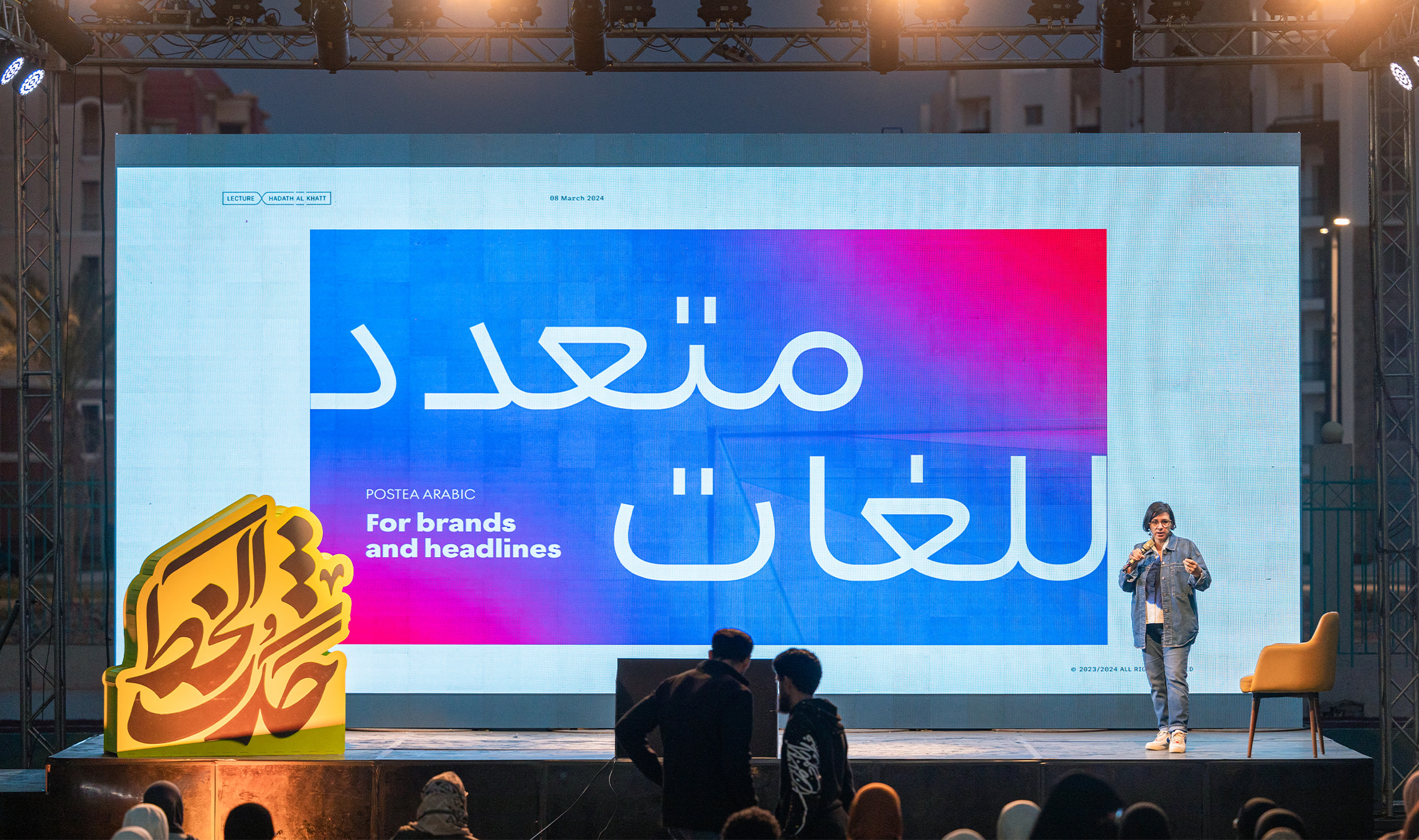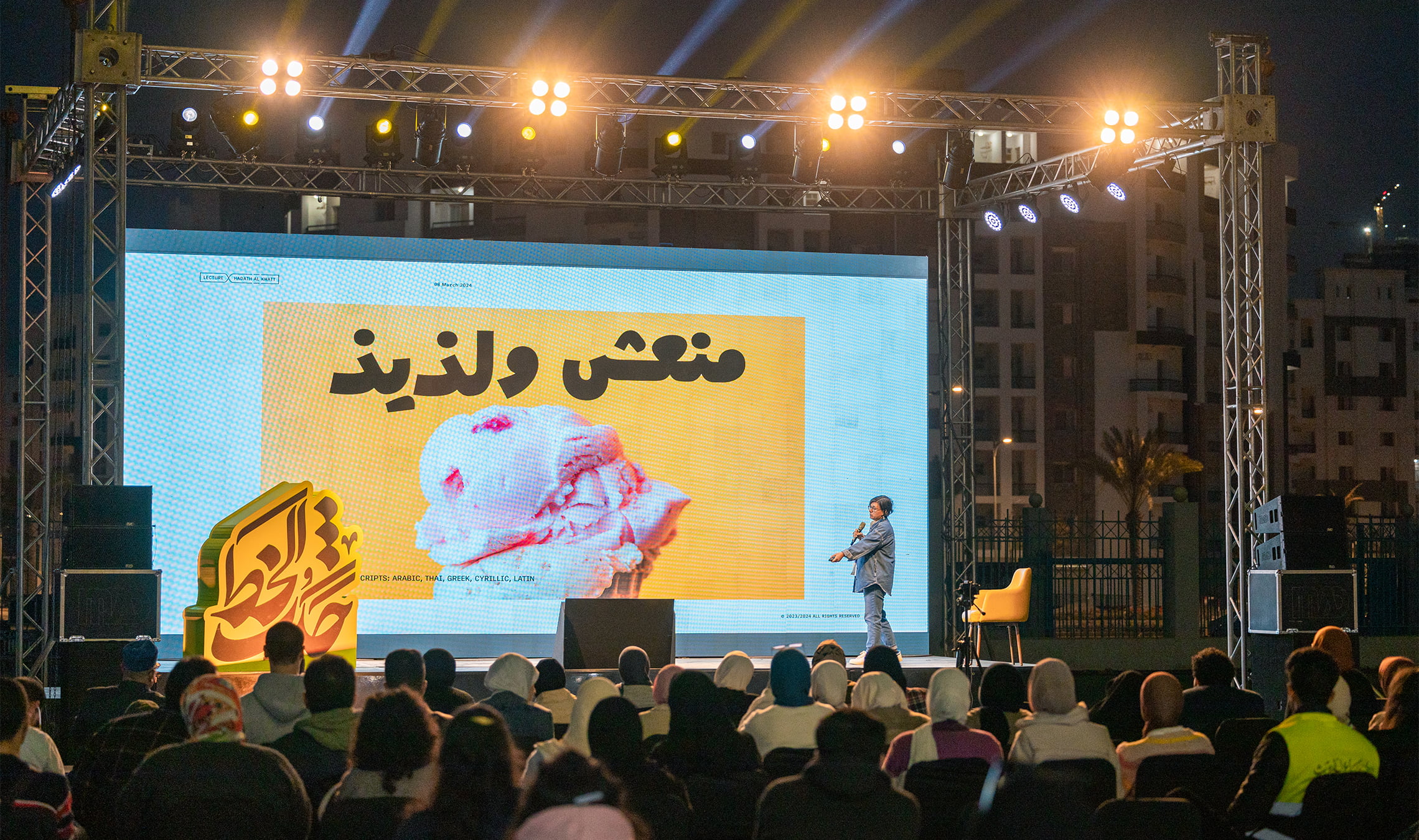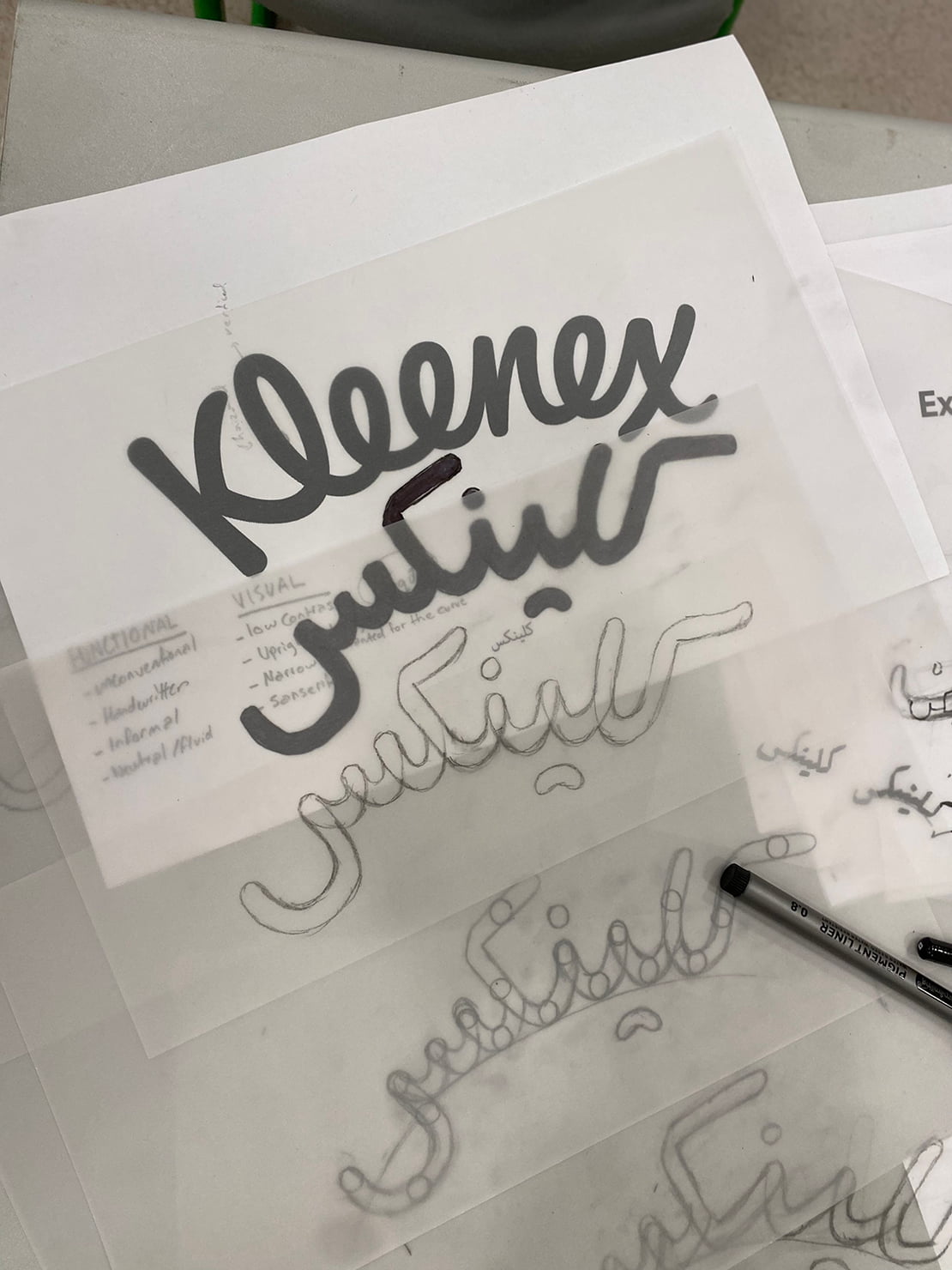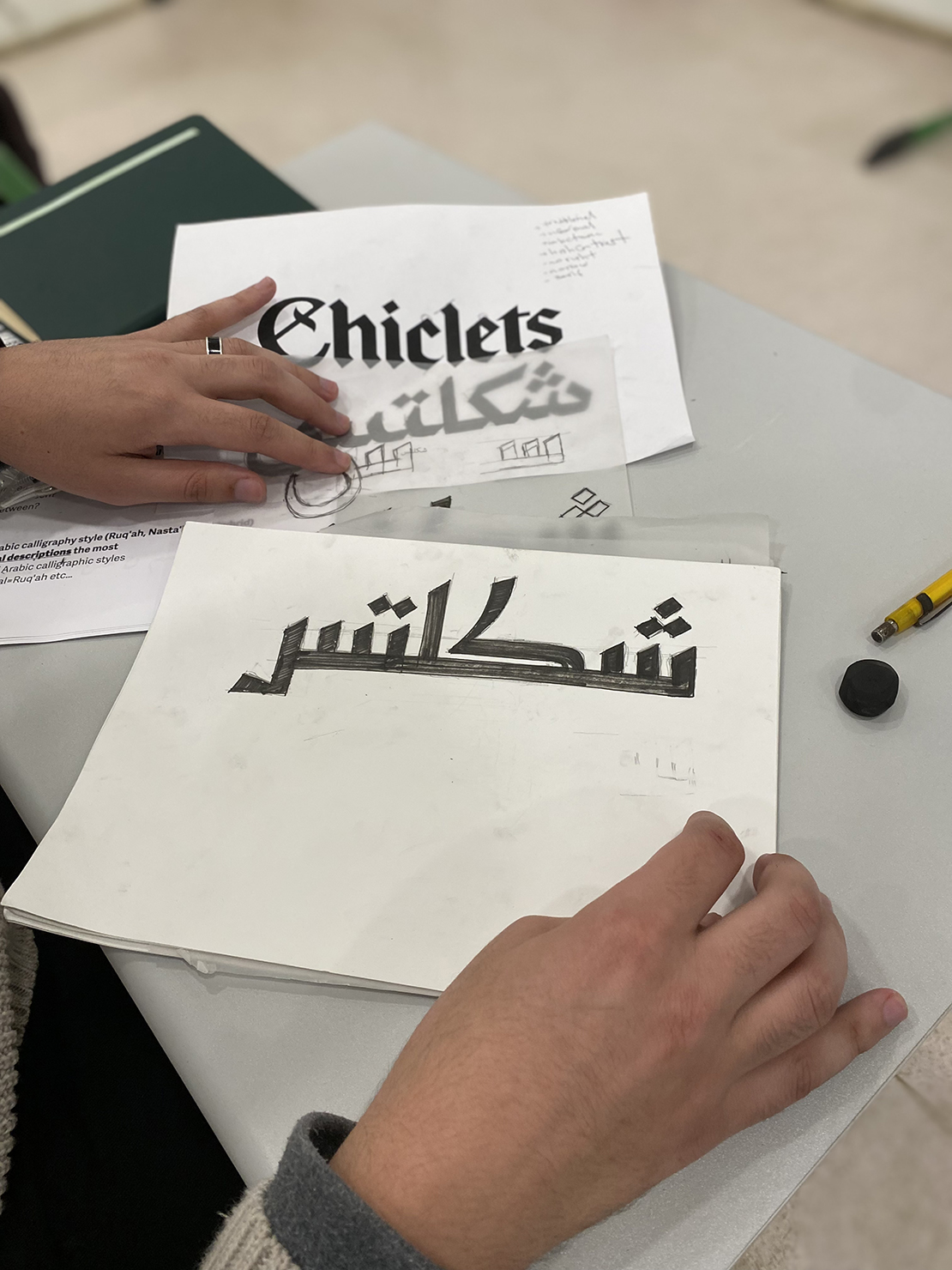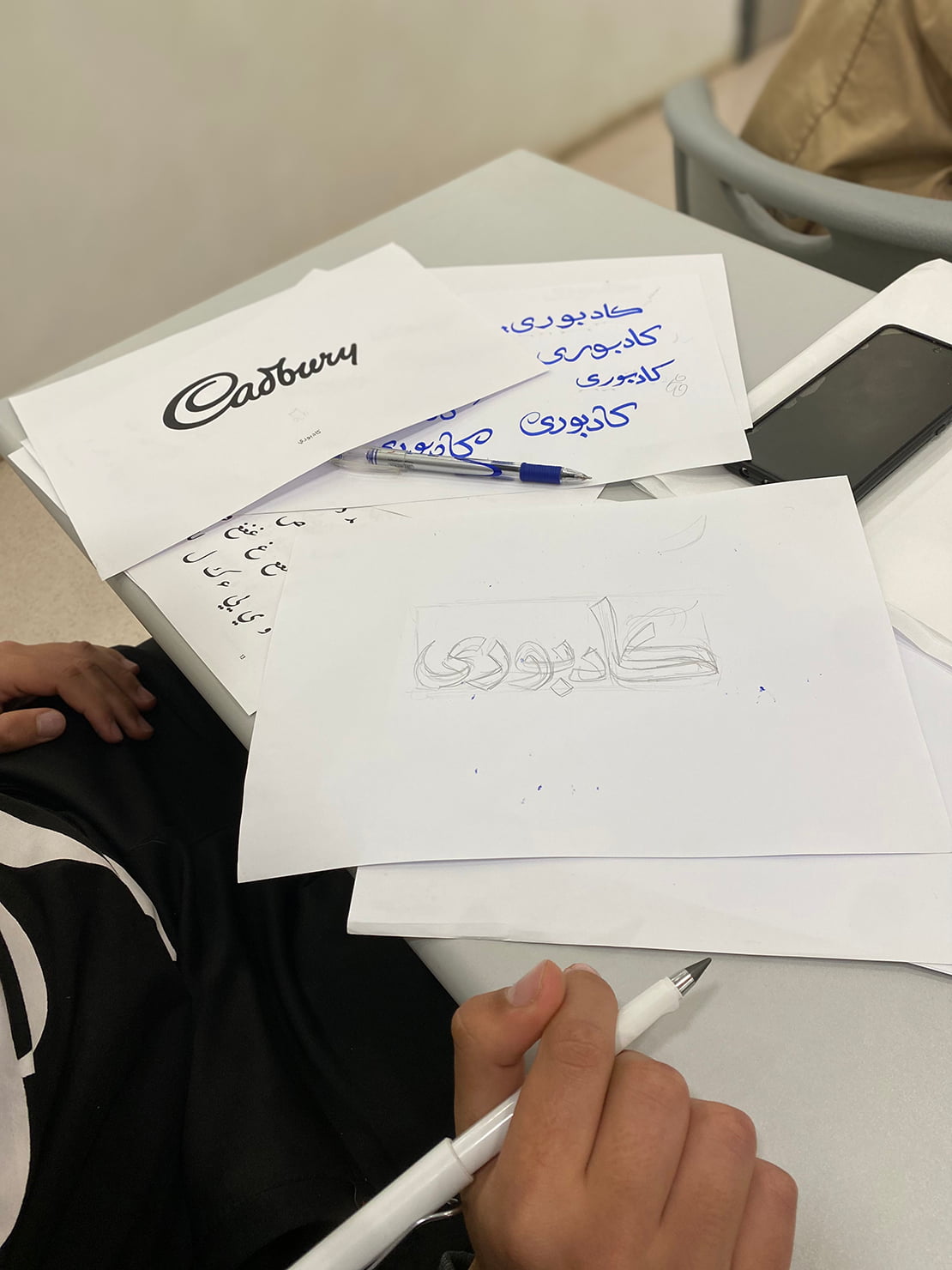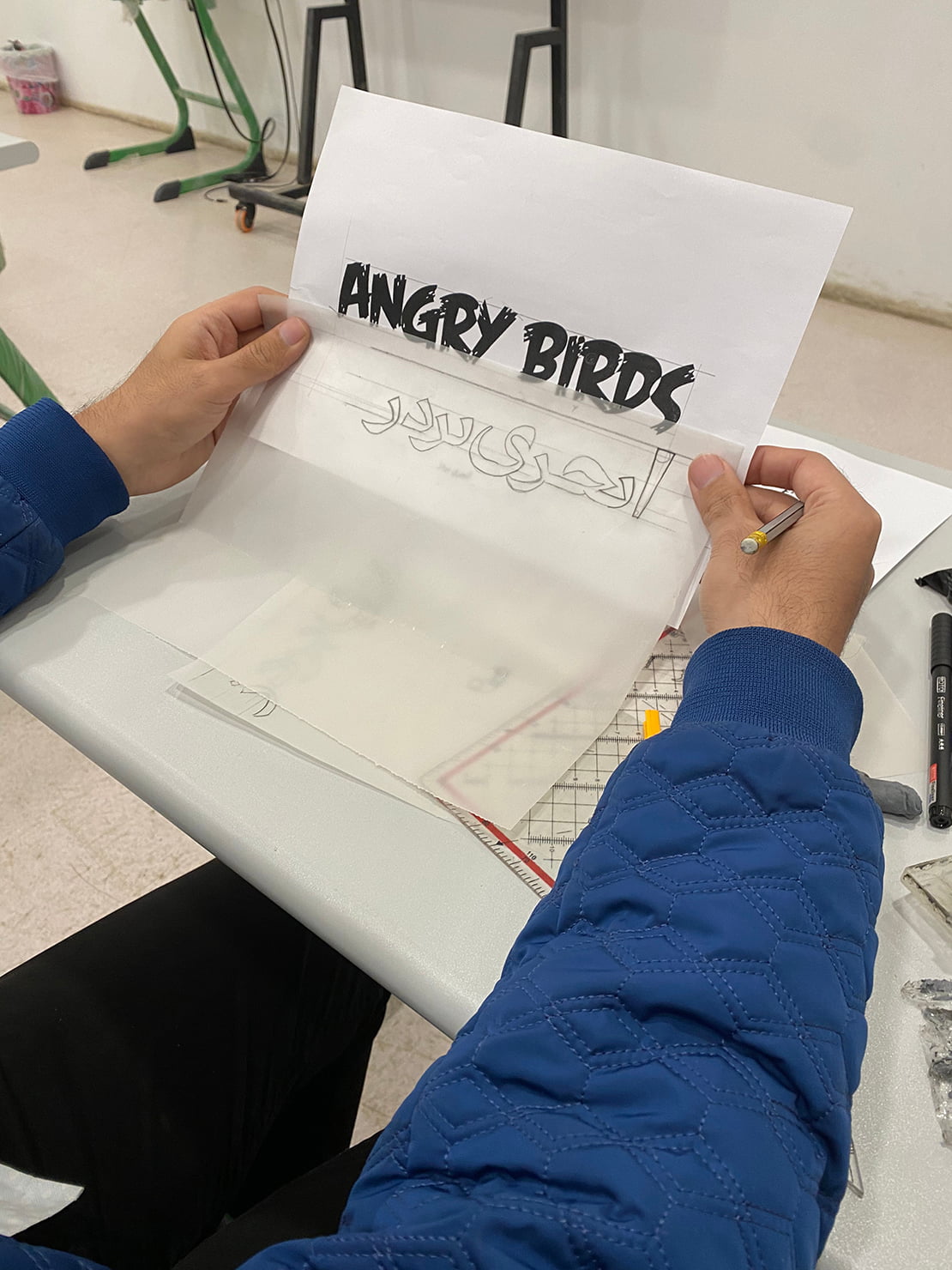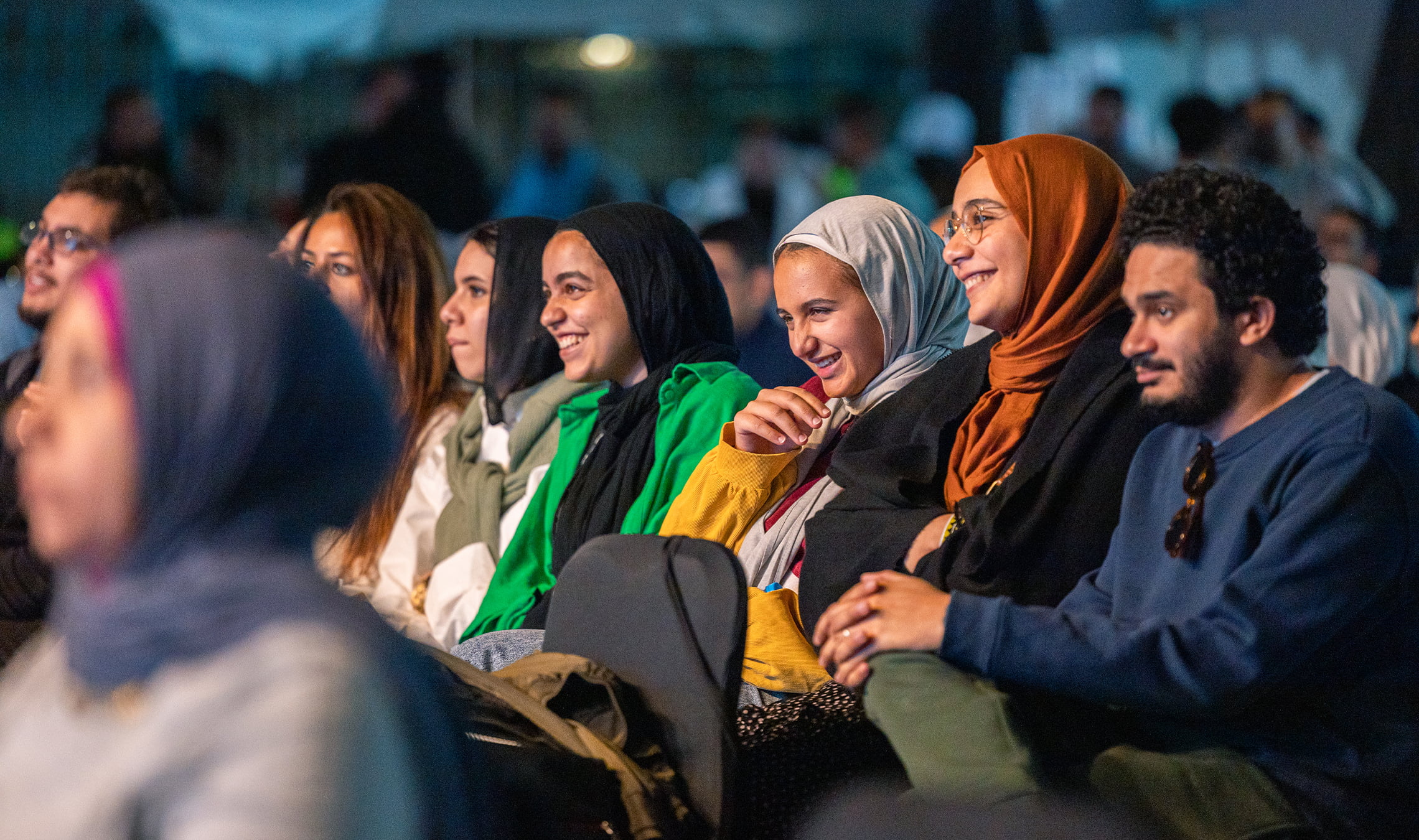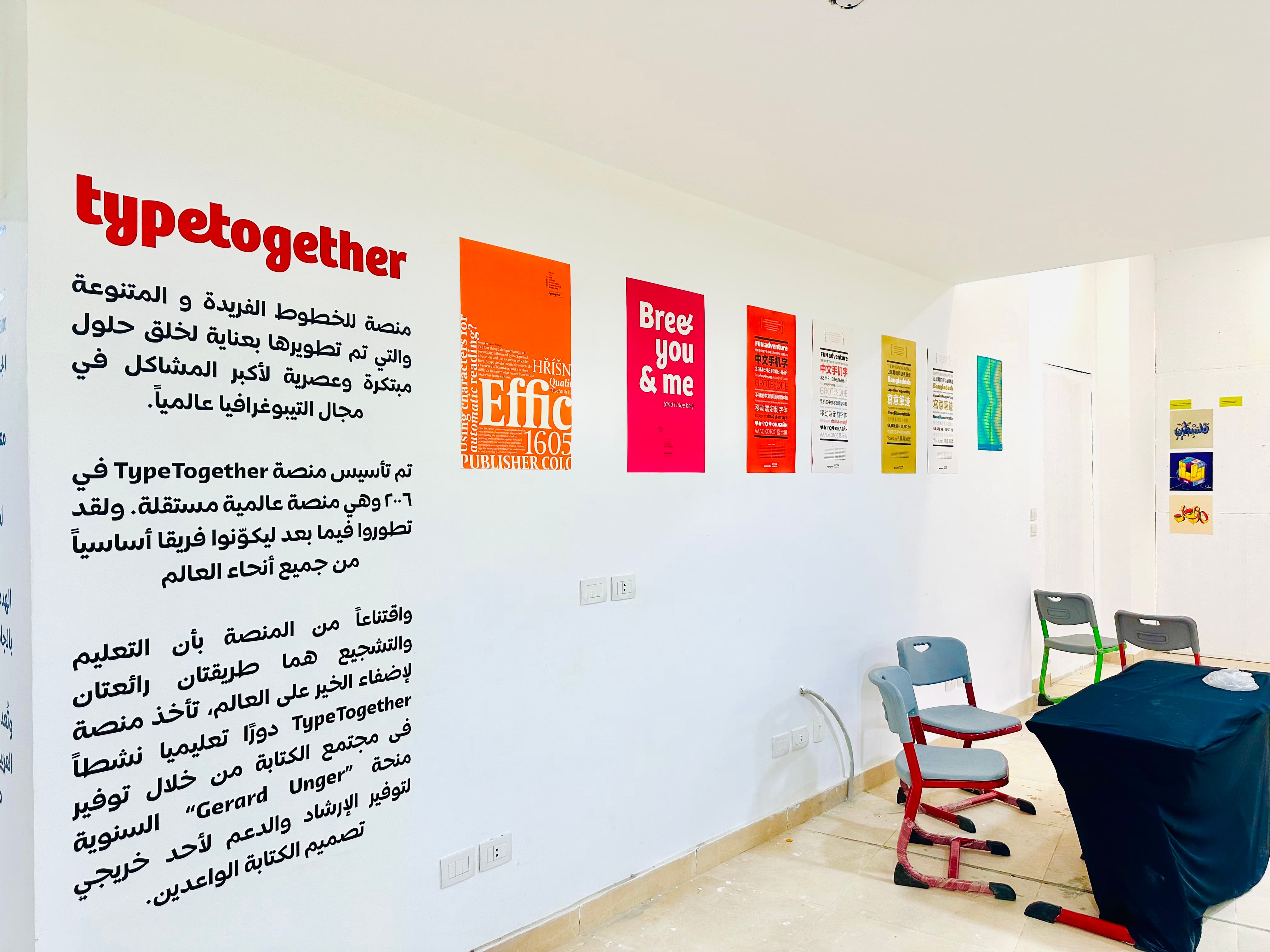
Azza’s Cairo Presentation
Each year many of our team members speak at conferences or lead specialised workshops. Azza Alameddine recently did both during the Hadath al Khatt conference in Cairo, Egypt.
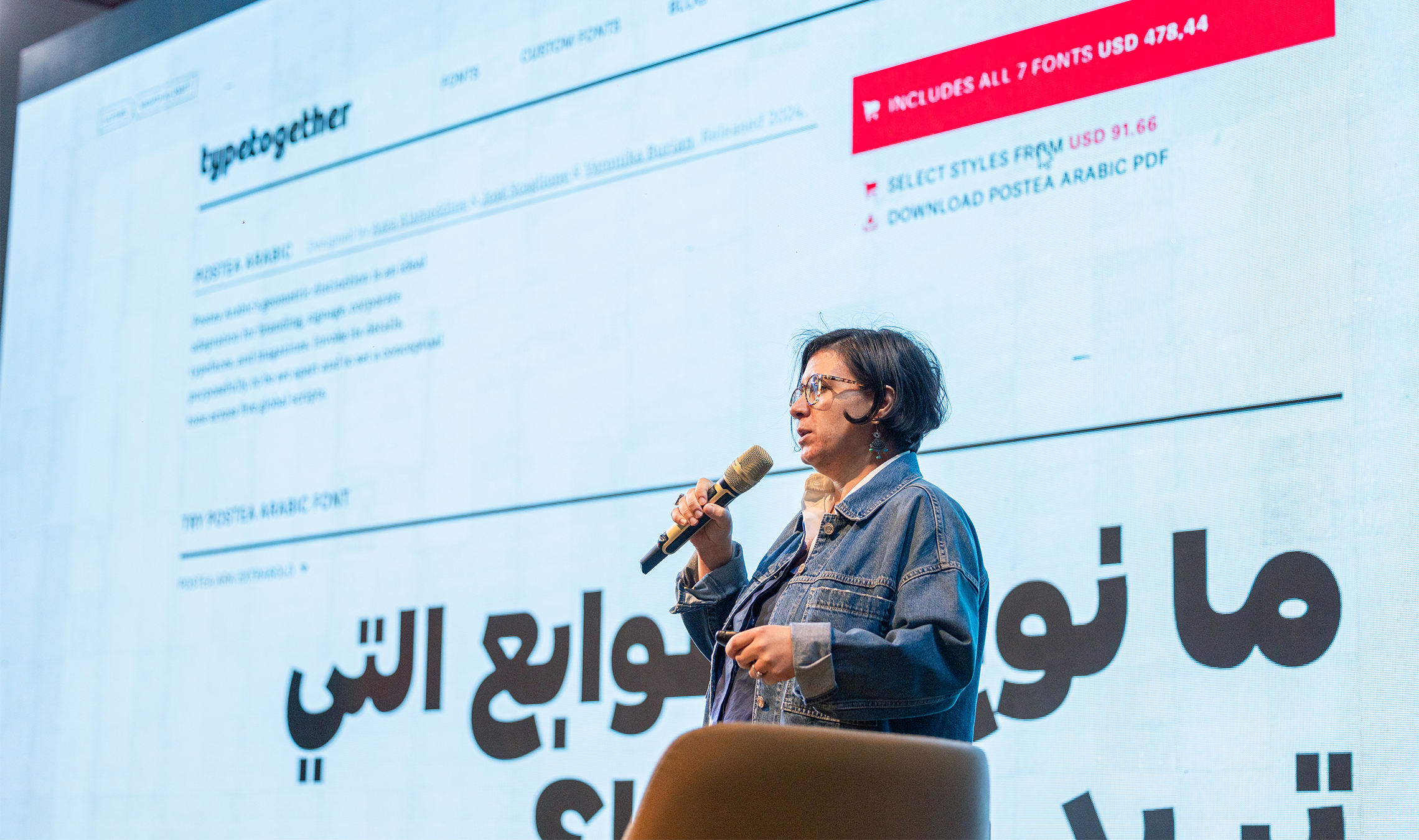
The Hadath al Khatt conference consisted of presentations and discussions about calligraphy, lettering, and type design targeted to a young audience (mostly students). The conference itself was held for only one day, but the week before was dedicated to various lettering and calligraphy workshops.
Azza conducted a workshop with mostly design students or recent graduates that taught them how to match Latin and Arabic logos. They already had a good understanding of the different Arabic calligraphic styles and the contexts in which they are used, but most participants didn’t know how the contrast of Arabic letters should apply. Therefore, choosing a style for their logo was quite an easy task for them, while matching the weight and contrast of the Arabic to the Latin was challenging. Overall, the results were quite good for it only being a six-hour workshop.
The conference also held an exhibition about Arabic typefaces designed by students of the German University in Cairo (GUC), which additionally showcased posters with some of TypeTogether’s typefaces as well as other type designs.
Azza’s main presentation consisted of showing the Arabic typefaces she designed for TypeTogether. But since she did not want it to be a simple portfolio showcase, she conducted a deep-dive explanation of making Bree Arabic. Azza explained to attendees the decision-making that goes into the structure before even starting the design process. And for those who could not attend the workshop, she also talked briefly about how to visually match an Arabic typeface to a Latin one.
After her presentation, many students approached Azza to ask questions about typeface design in general. There seemed to be a real demand and eagerness in understanding more about the technical and conceptual aspects of this field, which we are always happy support.